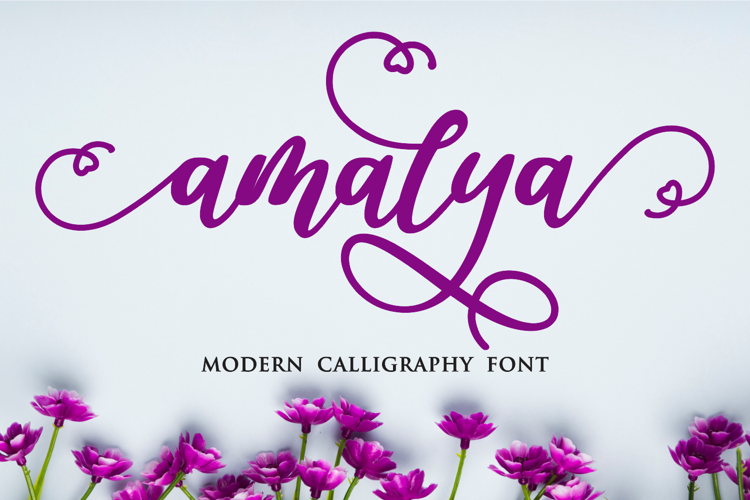
Amalya Font
About Amalya Font
More info from Girinesia
We proud presenting our new font.
It's name Amalya modern callygraphy font.
Amalya is a beautiful calligraphy font. It is a cute a fun font. But can also be used invitation, logos & branding , photography, advertisements, watermark, social media posts, product packaging, product designs, label, wedding designs, stationery, special events or anything that need handwriting taste.